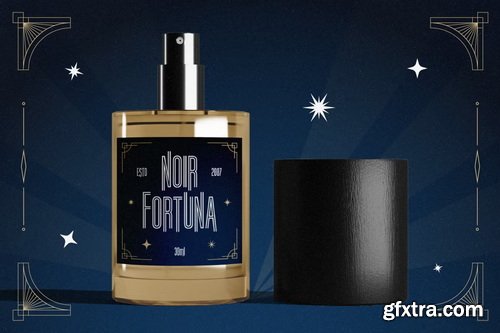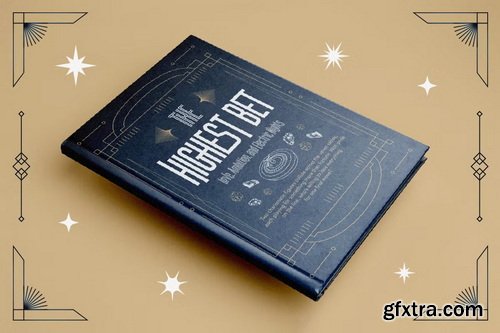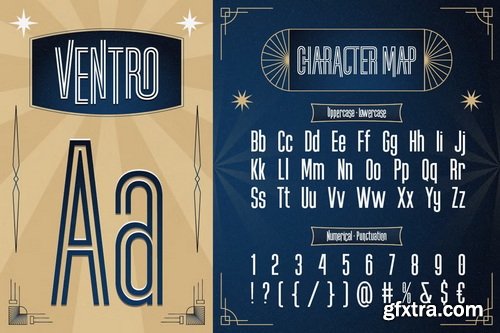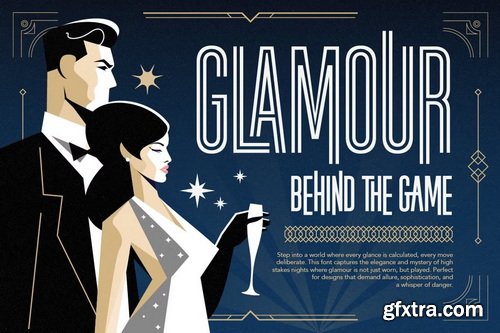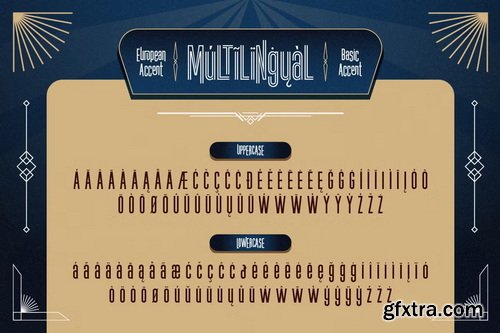
CreativeMarket - Ventro Art Deco Font
- Proudly present, Ventro, an Art Deco-style font that mixes the luxury of the 1920s with a modern feel. It comes in two styles: Regular and Inline, making it perfect for designs that want to look classic but still bold. With its strong look, Ventro works great for movie titles, vintage café logos, event posters, fancy product labels, and even retro sci-fi themes.